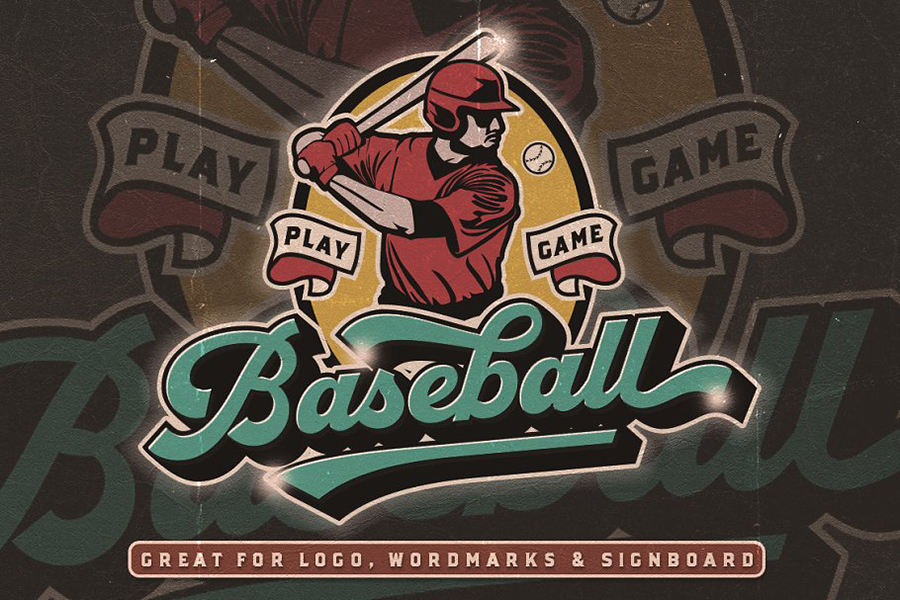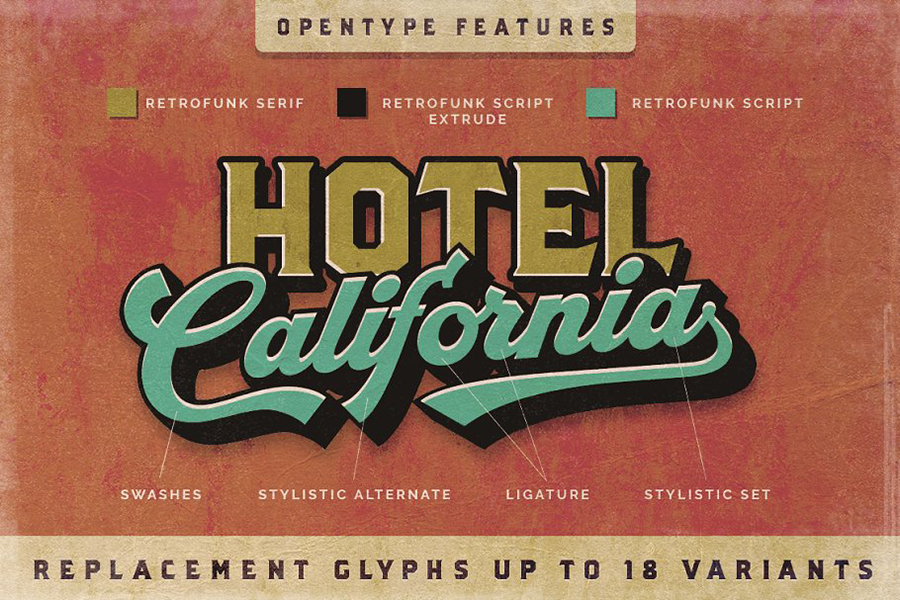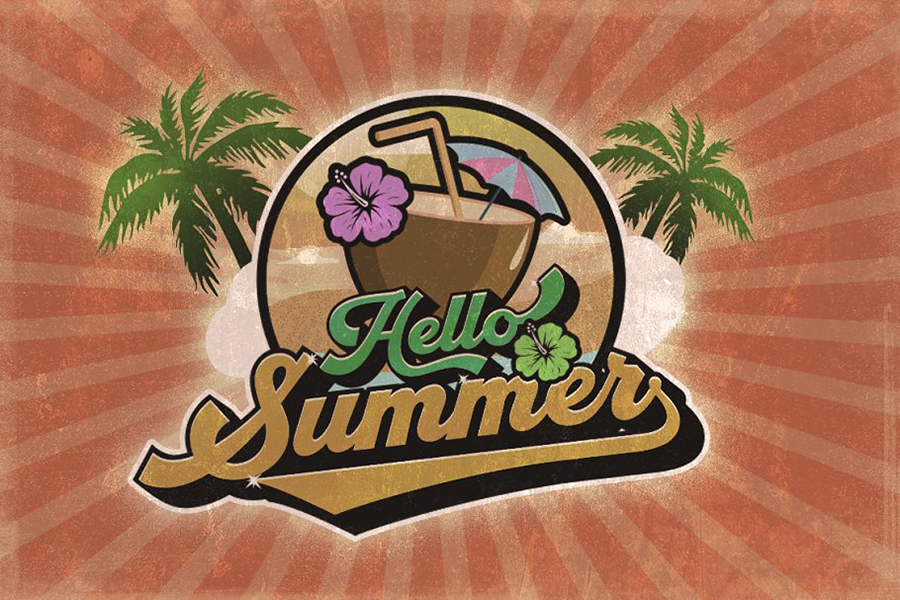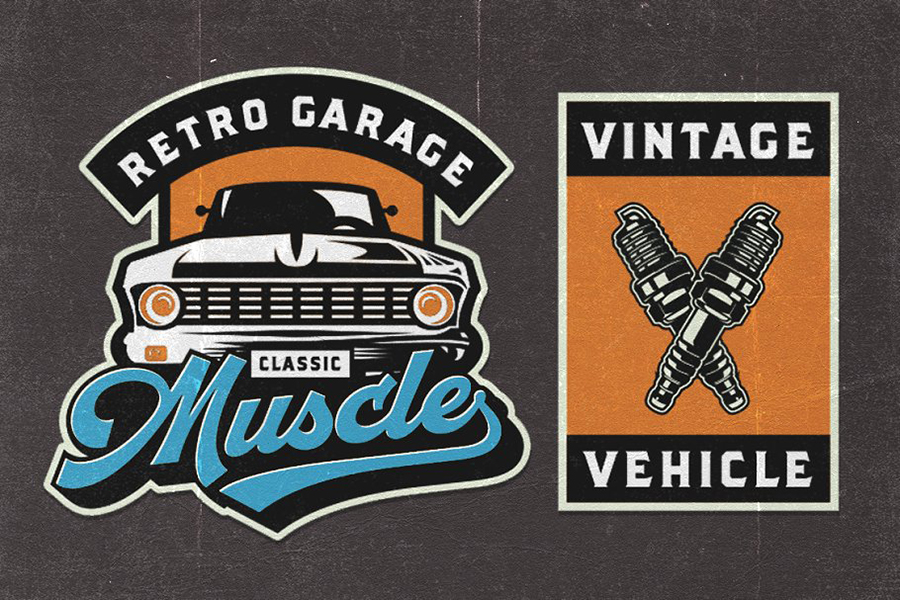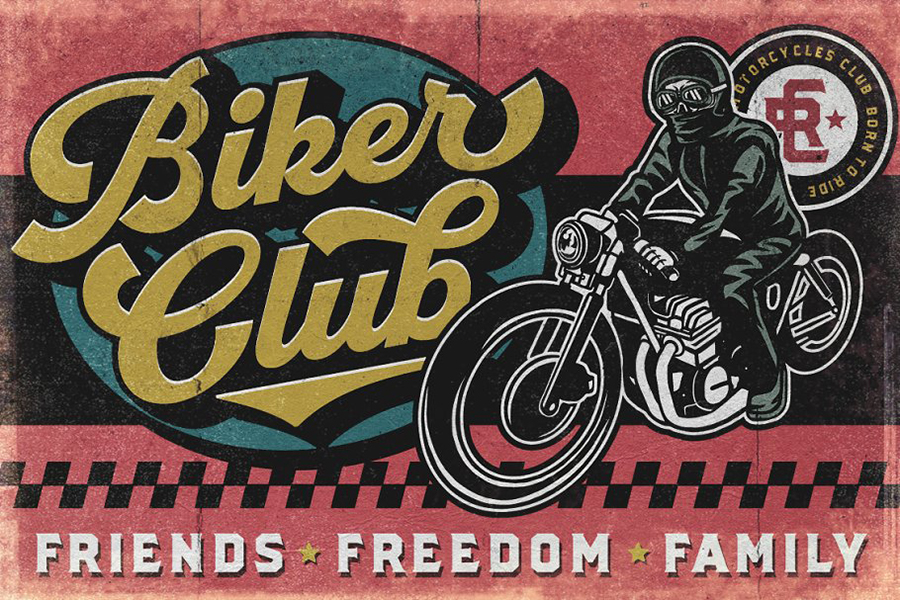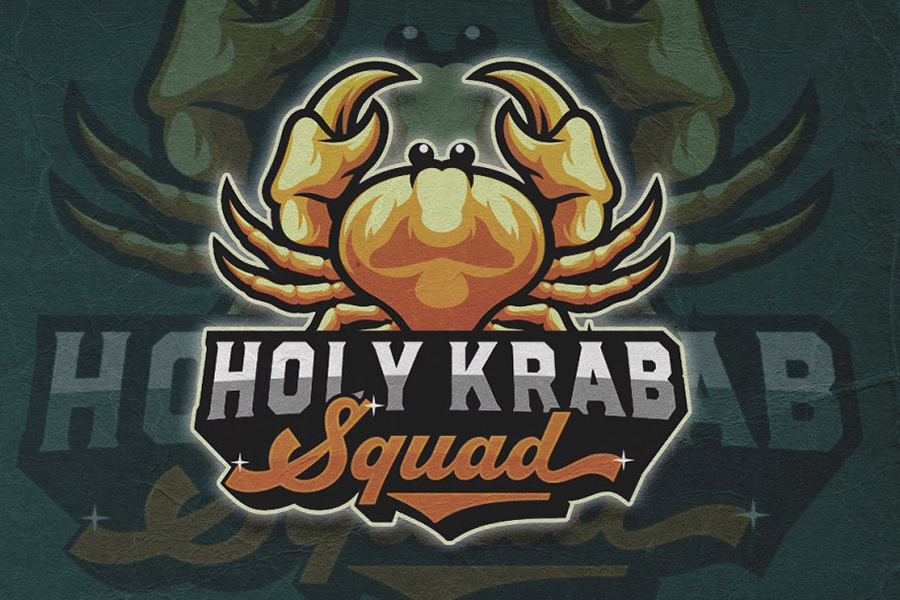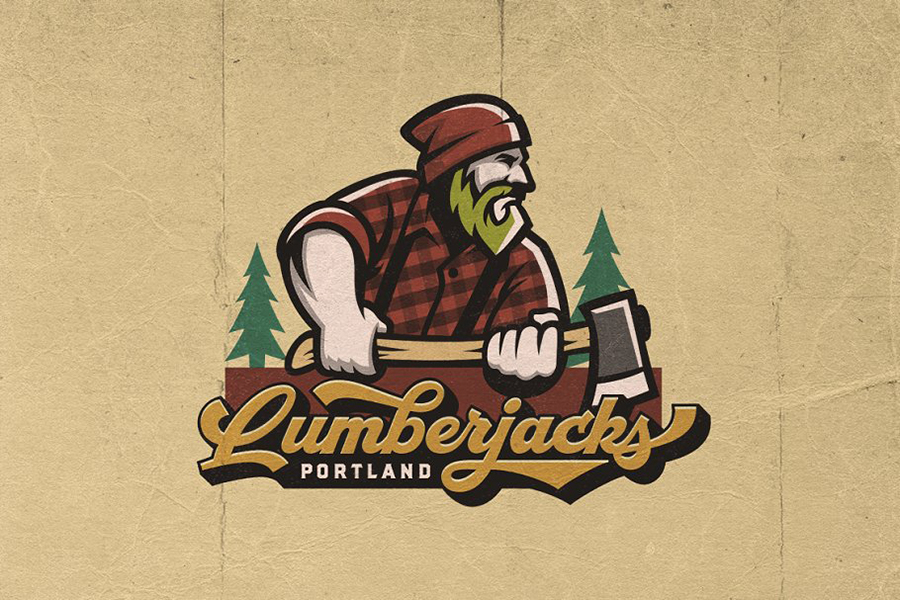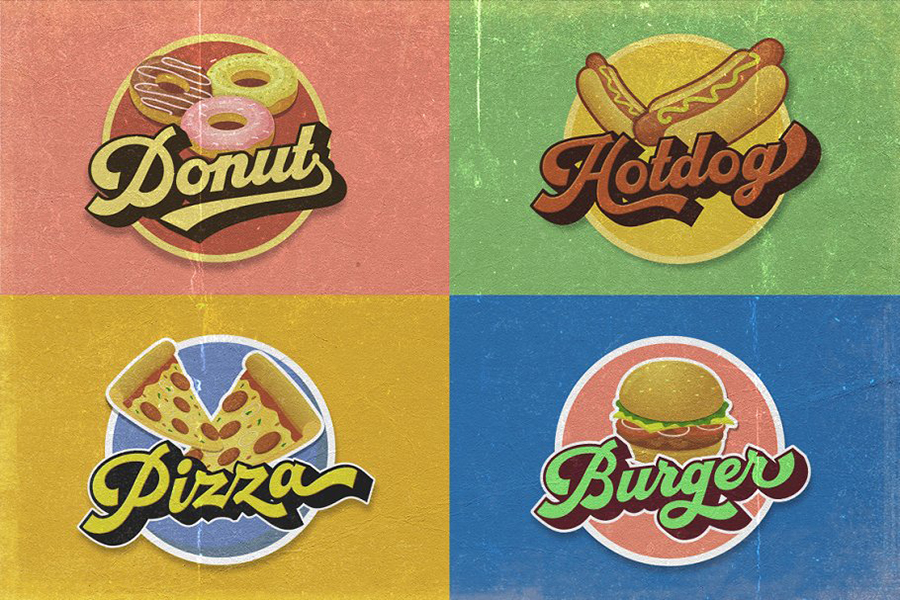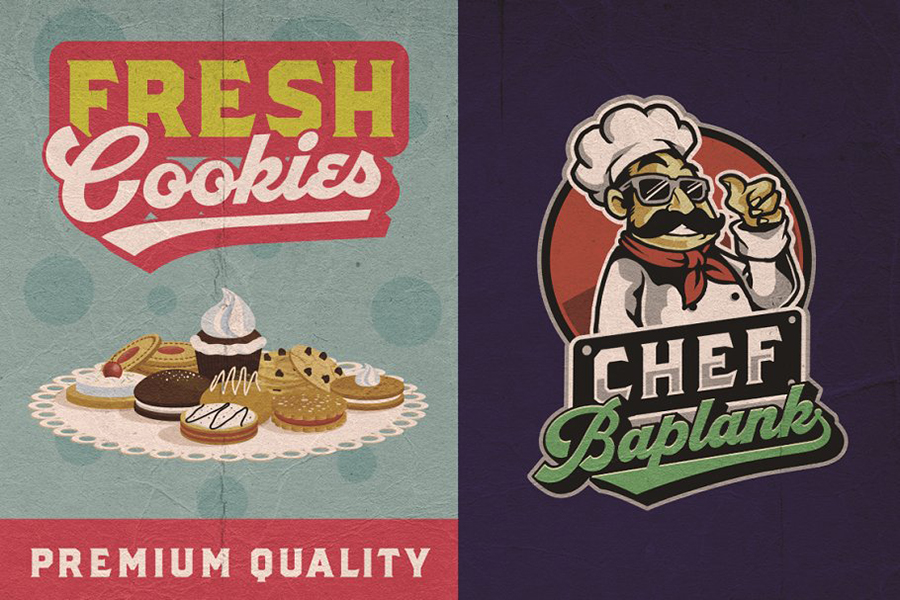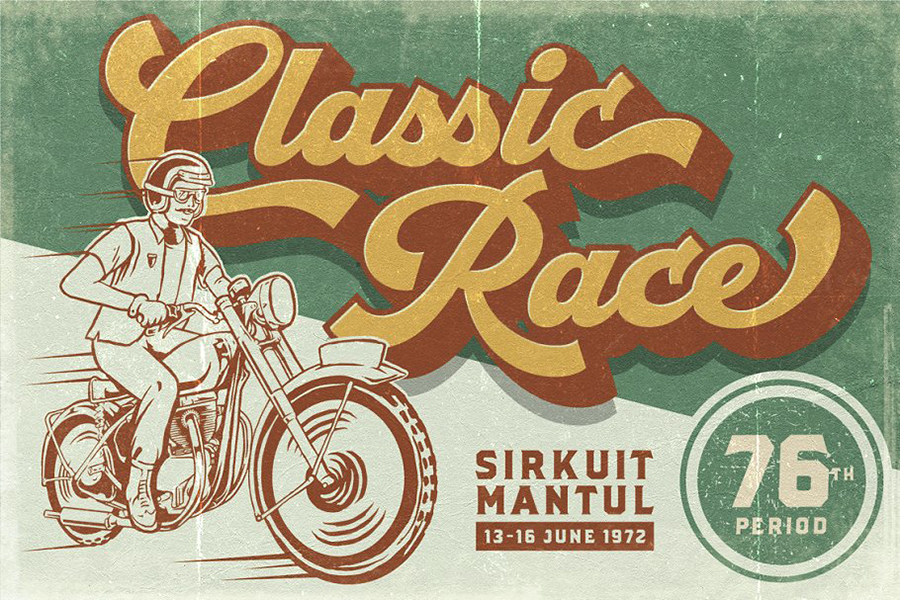
Retrofunk Script Free Demo
Retrofunk Script Free Demo is the younger brother of Groovy Script with a bonus a Serif Font. Both Script and Serif font are a great combination for creating a logo, signboard or a simple wordmark. Hundred of Alternates with PUA Unicode are packed inside Retrofunk Script. Those alternate characters will help you to create a bold, strong, artistic and variative typography design for Flyers, Poster Ads, T-Shirt, Book Cover, Titles or any retro or vintage typography.